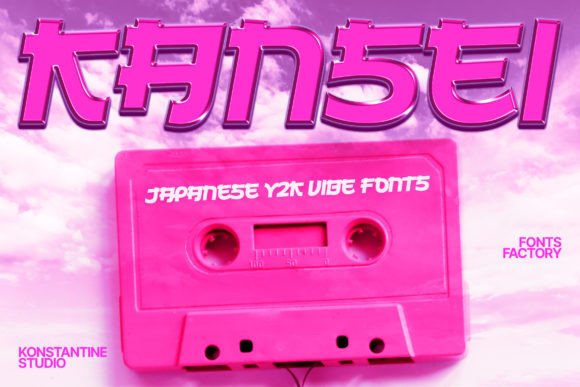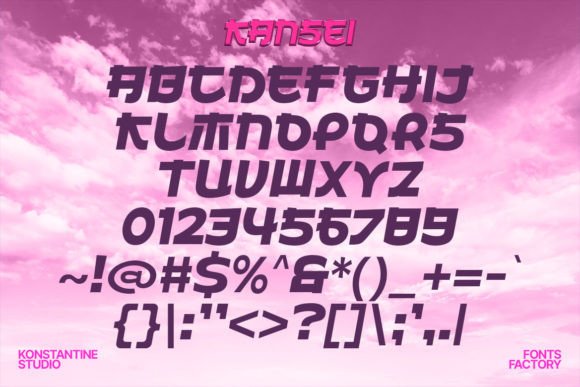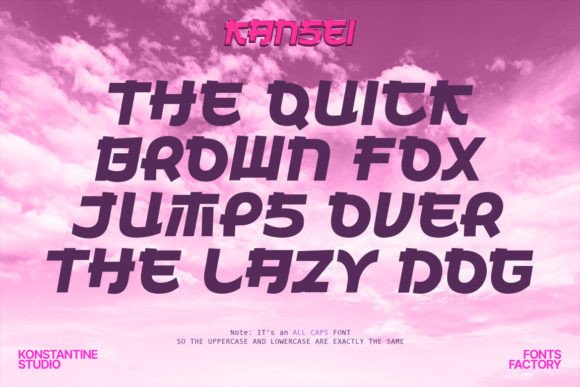
Kansei Font: Retro Y2K Display Font for Bold Logo Design
About the Kansei Font
The wait is over! The incredible Kansei Font is now available for your design toolkit. Kansei is a Japanese vibes font with a touch of Y2K era that has been rising everywhere nowadays.
Perfectly fit for your logo, branding, game asset, esport, poster, merchandise, y2k design, graphic design project, social media post, and many more.
It’s an ALL CAPS font, so the uppercase and lowercase remain the same.
Kansei’s bold, playful energy makes it ideal for headlines, short text blocks on posters, and branding elements where a strong visual impact is desired. Its retro-inspired aesthetic lends itself well to projects with a Y2K or early 2000s theme, particularly in gaming, esports, and fashion-related design. However, its all-caps nature and strong character weight make it unsuitable for body text or lengthy paragraphs; readability suffers at smaller sizes.
Pairing Kansei effectively requires considering its bold personality. A clean, geometric sans-serif like Futura or a minimalist serif like Garamond would provide a sophisticated contrast, grounding its energetic forms. For a more playful feel, a rounded sans-serif such as Gill Sans could be used, while a delicate script font could add a touch of unexpected elegance for specific applications, like a logo’s secondary element.
Avoid using Kansei in user interfaces (UI) where legibility is paramount. Its visual strength is best deployed sparingly, as an accent rather than a dominant feature in the overall design.
Kansei Font Usage Examples
Kansei Font Example